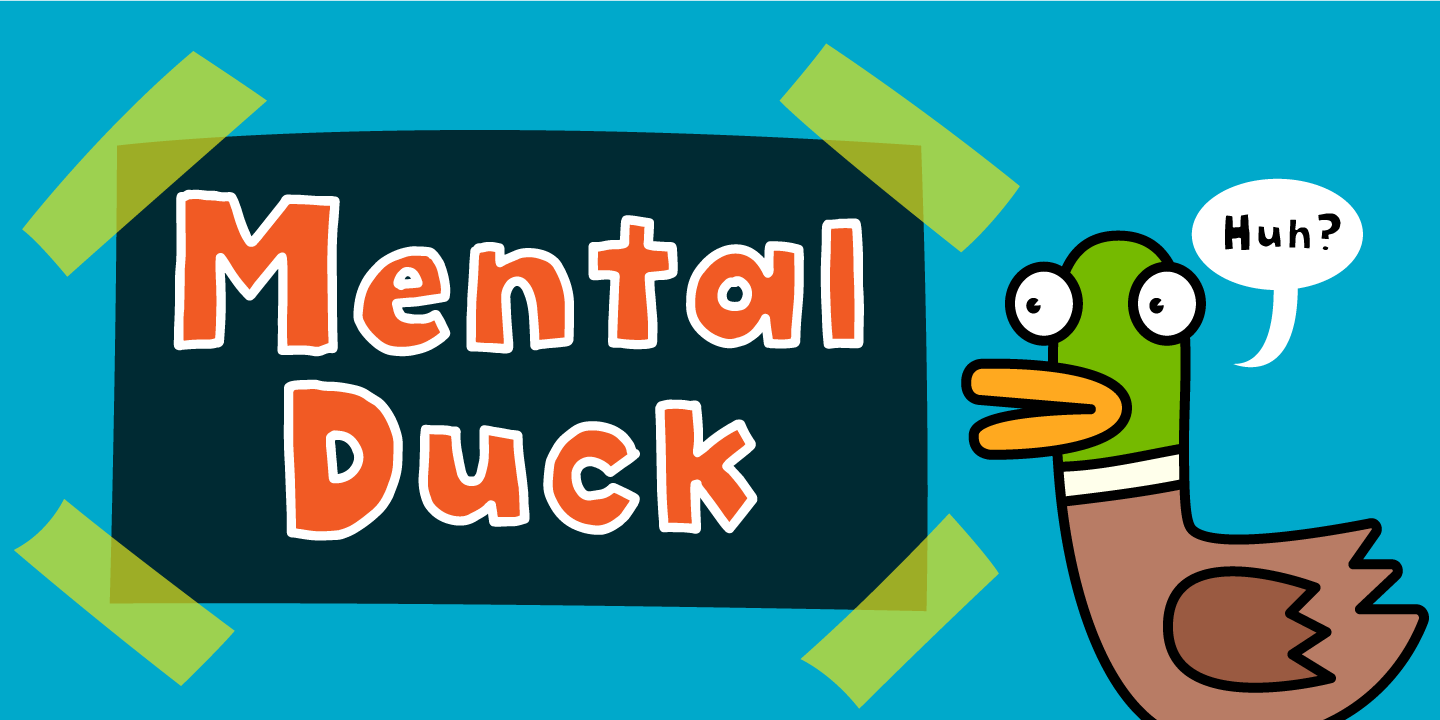
Mental Duck Font Free Download delivers a quirky typeface that embodies playful eccentricity and whimsical humor with unconventional charm. However, for commercial use, you must purchase this font. You can download it for free for testing purposes only.
Mental Duck Font excels in humorous design applications including comedy club branding, quirky restaurant signage, children's entertainment materials, novelty product packaging, funny greeting cards, eccentric brand identities, playful game interfaces, amusing social media graphics, unconventional advertising campaigns, and lighthearted lifestyle brands. This entertaining typeface brings delightful madness to fun-focused design projects.
What makes Mental Duck Font truly exciting is its deliberate embrace of typographic whimsy with unconventional letterforms that create instant smiles and memorable character through playful irregularities. The font features quirky character shapes with amusing details and unexpected proportions that convey humor, creativity, and delightful unpredictability. Its eccentric personality and humorous spirit make it ideal for brands embracing unconventional approaches, comedy entertainment, and audiences who appreciate absurd humor, creative zaniness, and the refreshing joy of not taking life too seriously.
The Mental Duck Font family typically includes Regular weight with potential stylistic alternates and humorous variations that enhance its quirky character. These amusing options provide designers with complete eccentric styling while maintaining the font's distinctive playful elegance and humorous presentation across various entertainment applications and comedy contexts.
Whether you're developing entertainment branding, creating humorous campaigns, or designing quirky marketing materials, Mental Duck Font Free Download provides the comedic authority and whimsical sophistication that humor-focused projects require. Its exceptional quirkiness and entertaining appeal make it invaluable for designers working with comedy venues, entertainment brands, and fun-focused organizations requiring typography that celebrates creative madness, unconventional thinking, and the universal appeal of good humor that brings laughter, joy, and delightfully unexpected moments to audiences seeking entertainment and creative expression.